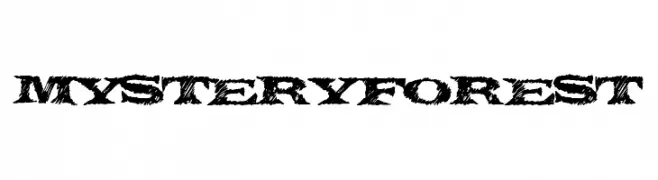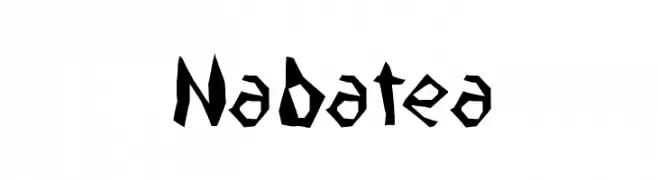
A modern, clean font with slightly curved uppercase letters and clear lowercase characters.
A versatile sans-serif font with both decorative and bold variations.
A bold, modern font with thick strokes and rounded edges.
A modern, light sans-serif font with a clean and minimalist design.
A whimsical font with curly, decorative elements, perfect for magical or fantasy themes.
A rugged, textured font with a natural, wild aesthetic.
A bold, angular font with a hand-carved, edgy aesthetic.